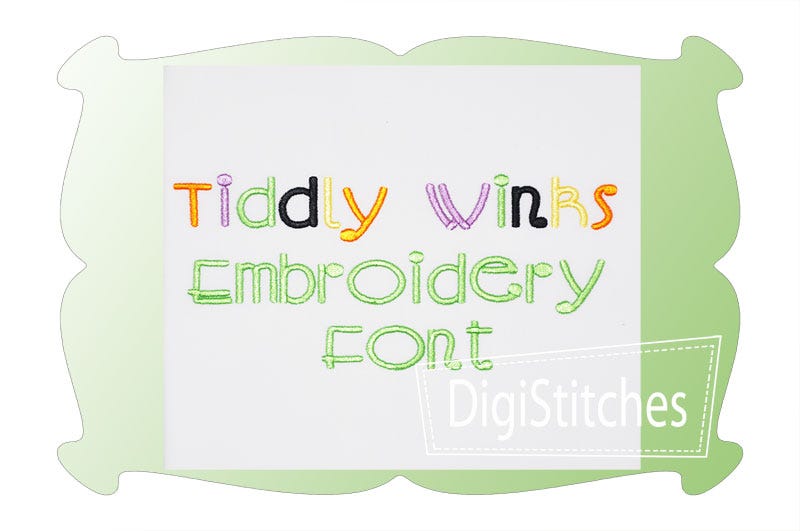
Tiddly Winks Satin Stitch Embroidery Font
Tiddly Winks Embroidery Font
With dots of whimsical letters, Tiddly Winks embroidery font is sure to be a favortie.
Featuring super bold letters that really stand out on t-shirts and projects.
Upper case letters A thru Z, lower case letts a thru z, numbers 0-9, punctuation as shown.